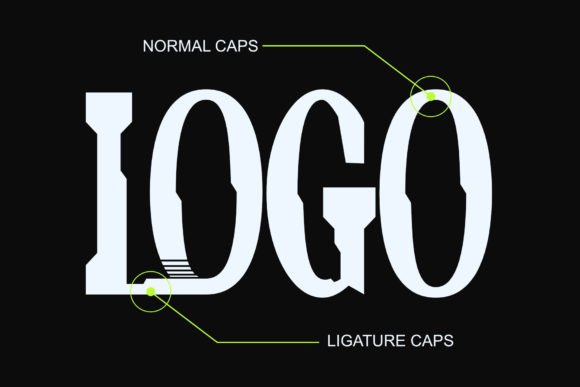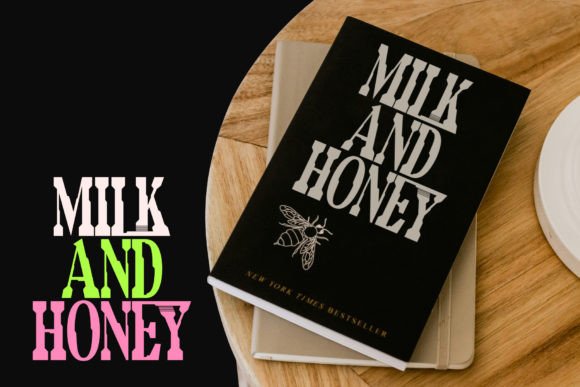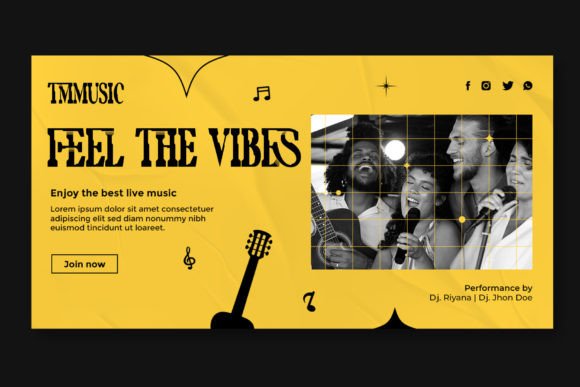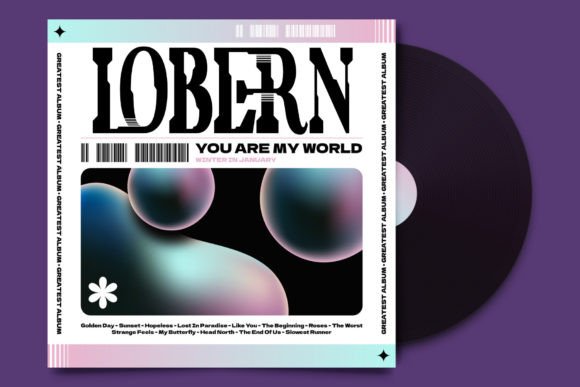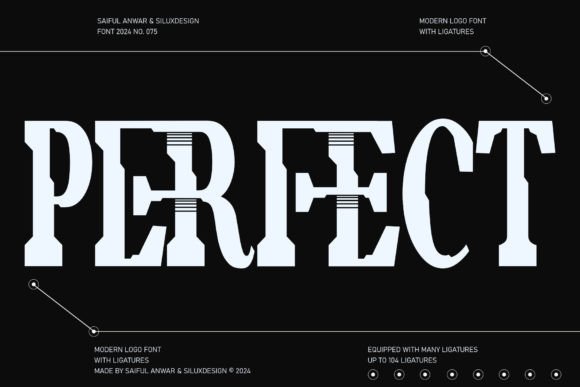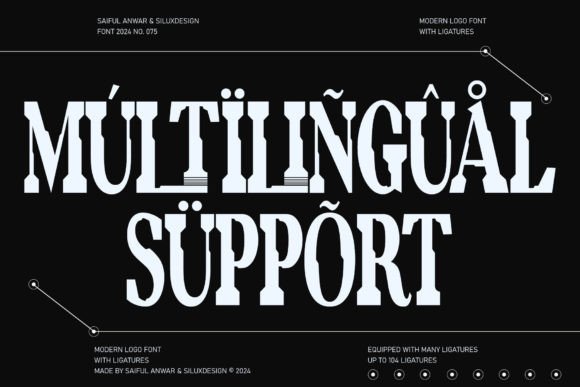
Introduction to Resifen Font
As a designer, there’s nothing quite like the thrill of bringing a creative project to life. The blank page, the blank canvas – it’s a blank slate waiting for your imagination to run wild. And what’s the first thing that sparks that creative spark? Often, it’s the font. The typeface that sets the tone for your entire design. For those seeking the perfect font to elevate their designs, look no further than the Resifen Font. With its sleek design and meticulously crafted ligatures, this modern logo font is a game-changer for designers.
The Resifen Font’s compact structure and legibility make it an ideal choice for logos, headlines, packaging, and web designs. Its extensive collection of expertly designed ligatures adds sophistication and visual allure, making it a valuable resource for designers. Whether you’re working on a branding project or a digital interface, the Resifen Font is sure to make a lasting impression.
Key Features of Resifen Font
- Unique, modern design aesthetic, perfect for adding a touch of creativity to any project or design.
- Designed with precision and attention to detail, ensuring a high-quality appearance across various mediums and resolutions.
Honest Review: Resifen Font
- ✨ The Resifen Font has a unique and modern design aesthetic that’s perfect for a wide range of creative projects.
- ⚠️ The font only includes a limited number of characters and glyphs, which may not be suitable for complex designs or projects that require a wide range of characters.
To get the most out of the Resifen Font, use it with a transparent background to create a clean and modern design. You can also pair it with other high-quality design resources to create a unique and creative project.
The Resifen Font is ideal for various design projects, including logos, branding, and marketing materials. It’s also great for creating social media graphics, presentations, and documents that require a modern and professional look.